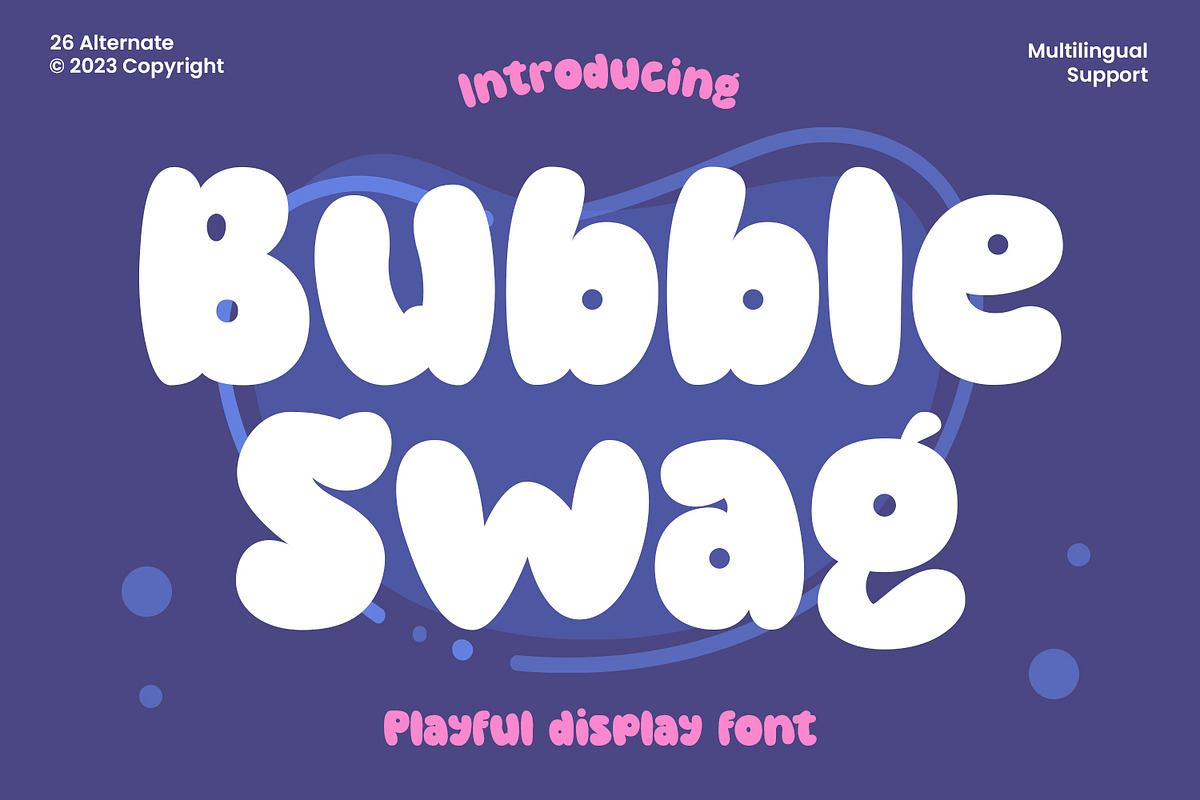
Bubble Swag Font Free Download is a fun and bold display typeface designed to add a playful, lively touch to your creative projects. With its round, bubble-inspired letterforms and bold personality, Bubble Swag is perfect for posters, branding, social media graphics, merchandise, and any project that needs an energetic, eye-catching style.
Bubble Swag Font Free Download captures a youthful, energetic vibe with its bubbly, oversized letters, making it ideal for designs that want to stand out and grab attention. Whether you're creating a logo for a fun brand, designing a party invitation, or adding playful headlines to a website, this font brings joy and excitement to any project.
Bubble Swag pairs well with both simple sans-serifs and quirky scripts, offering versatility for a range of creative needs. Its bold, dynamic nature makes it perfect for adding impact to designs while still maintaining a friendly, approachable vibe.